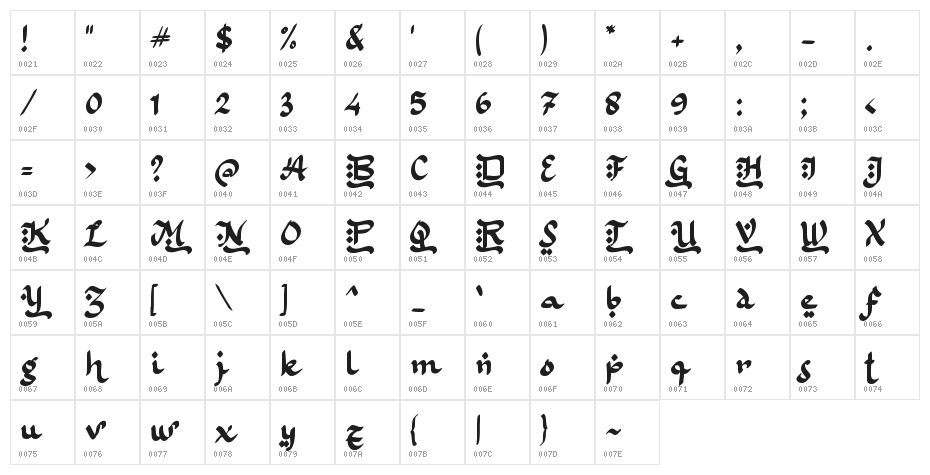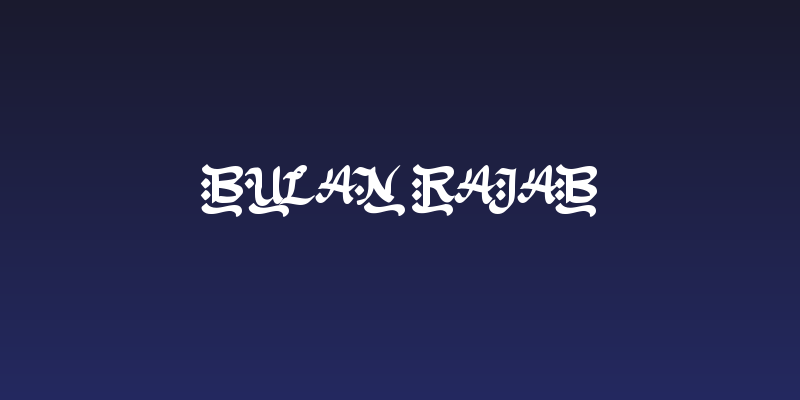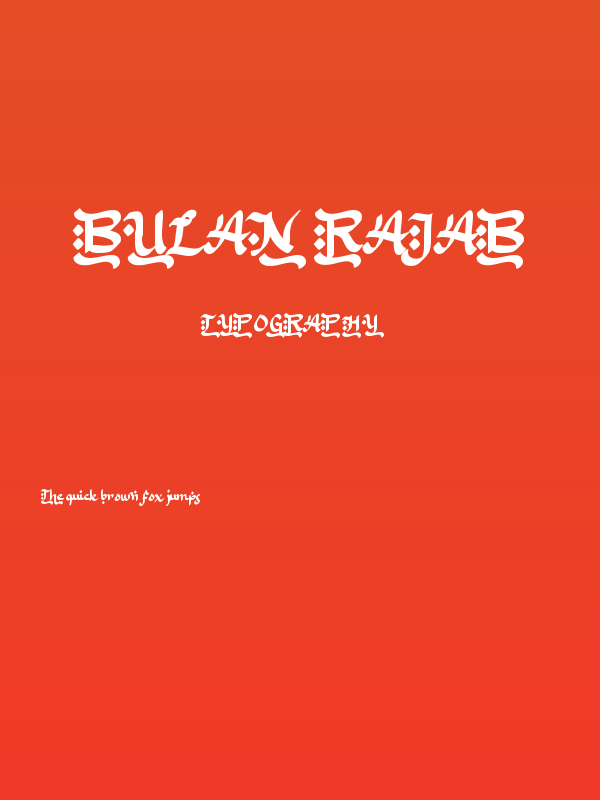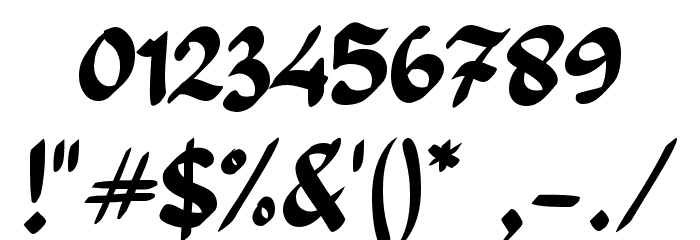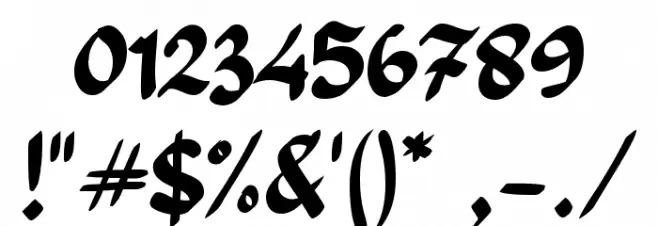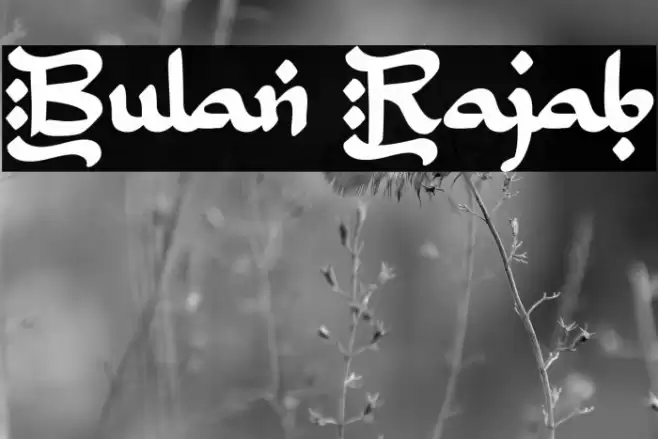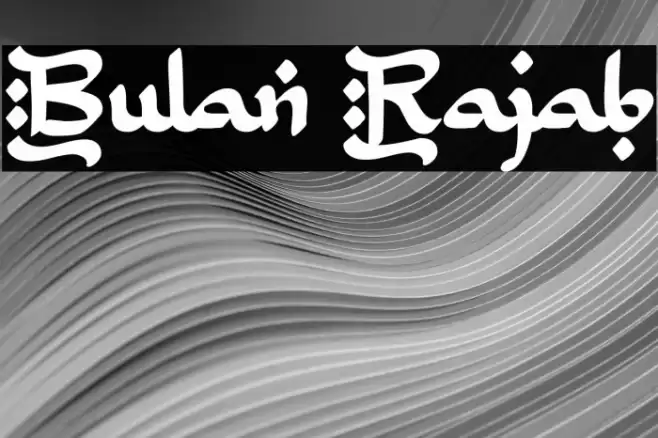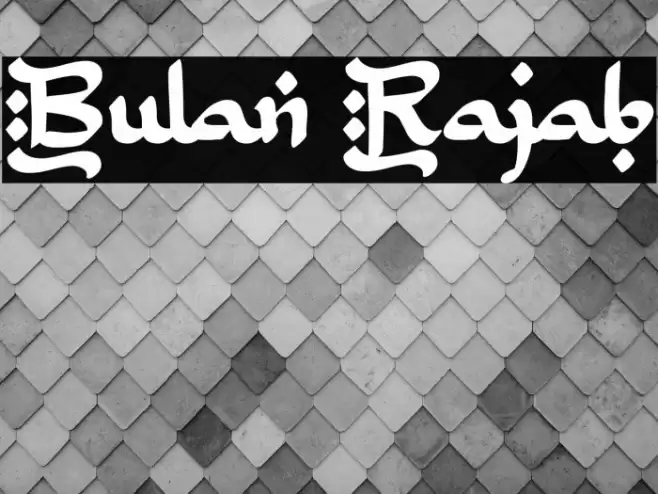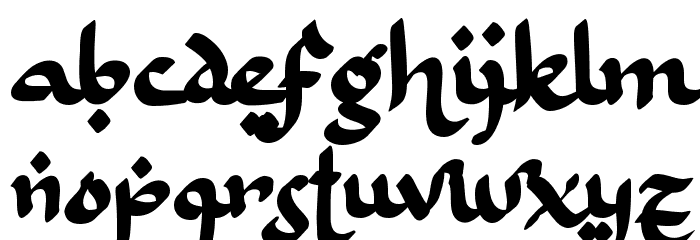
Bulan Rajab Font
Bulan Rajab Description
This font features a bold and dramatic style with intricate details reminiscent of calligraphic and blackletter influences. The uppercase letters are adorned with ornate flourishes and sharp angles, creating a sense of elegance and formality. The lowercase letters maintain a consistent flow, with smooth curves and a slightly condensed appearance. Numbers and special characters are designed to match the overall aesthetic, ensuring a cohesive look across all text elements. The font's unique style makes it suitable for projects that require a touch of sophistication and historical flair.
| Width | Condensed |
| Use Case | Headlines, Logos, Decorative text |
| Proposed Projects | Ideal for invitations, certificates, branding, and decorative headlines. |